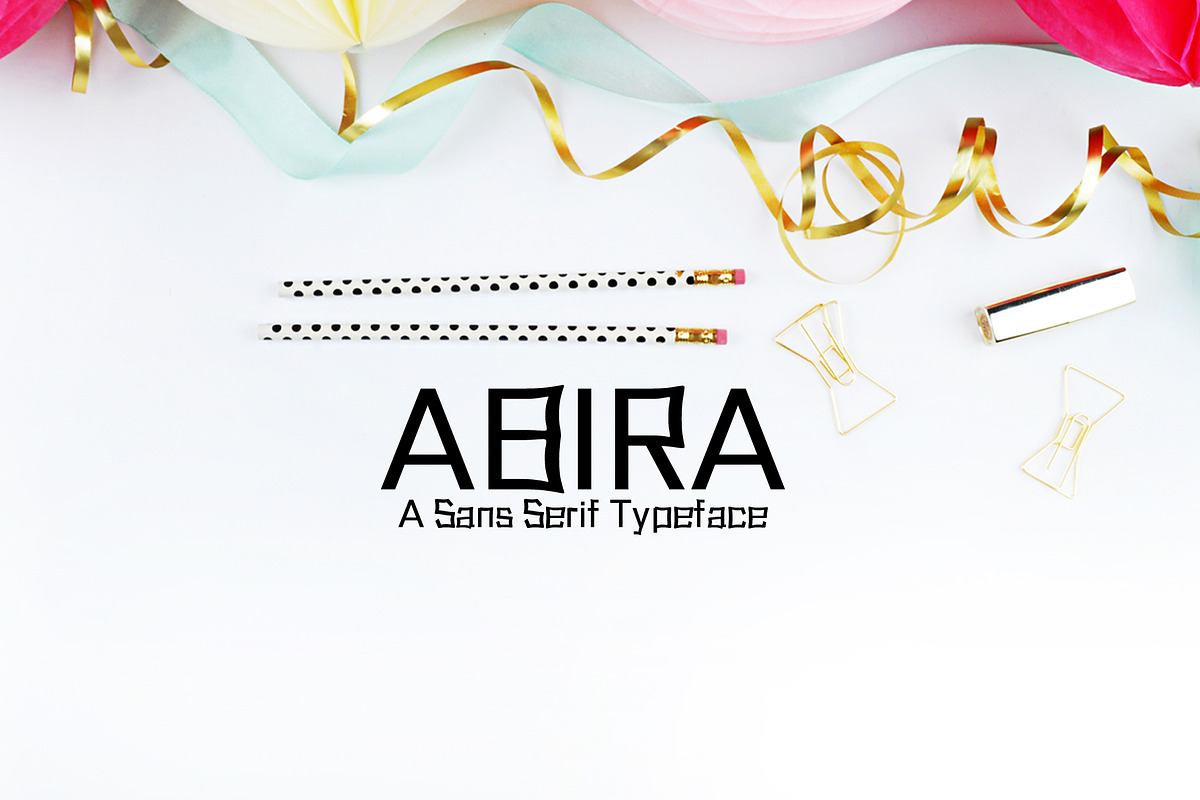
Abira Sans Serif 6 Font Family Pack Free Download is a clean, modern typeface family featuring six distinct weights that offer excellent versatility and functionality. With its minimalist style, geometric shapes, and refined proportions, Abira is perfect for branding, editorial layouts, web design, advertising, and corporate identity projects.
The Abira Sans Serif 6 Font Family Pack Free Download includes light to bold weights, making it easy to build visual hierarchy and maintain consistency across various platforms and mediums. Whether you're designing headlines, body text, or user interfaces, Abira delivers clarity, professionalism, and contemporary elegance.